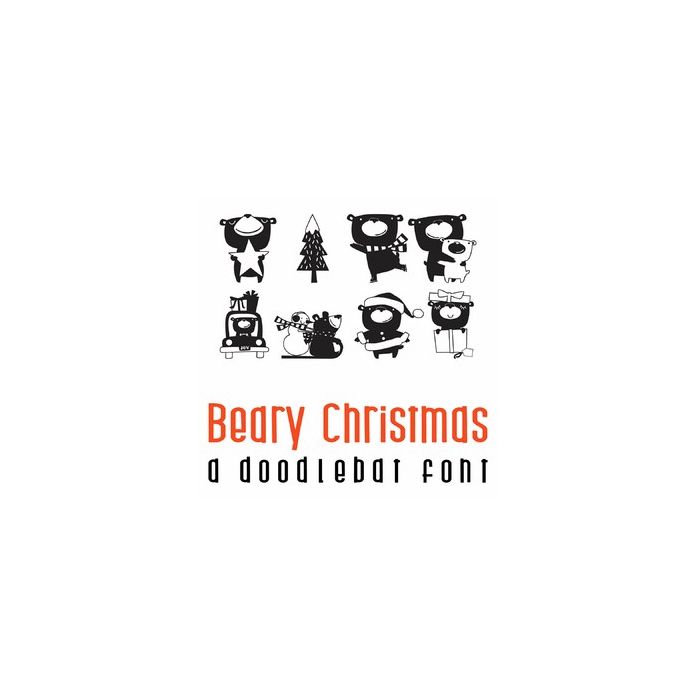
Beary Christmas Doodlebat Font
This fun doodlebat font features 26 adorable Christmas bears. Perfect for cards, gifts, decor, crafts, scrap book pages, planner stickers and more!